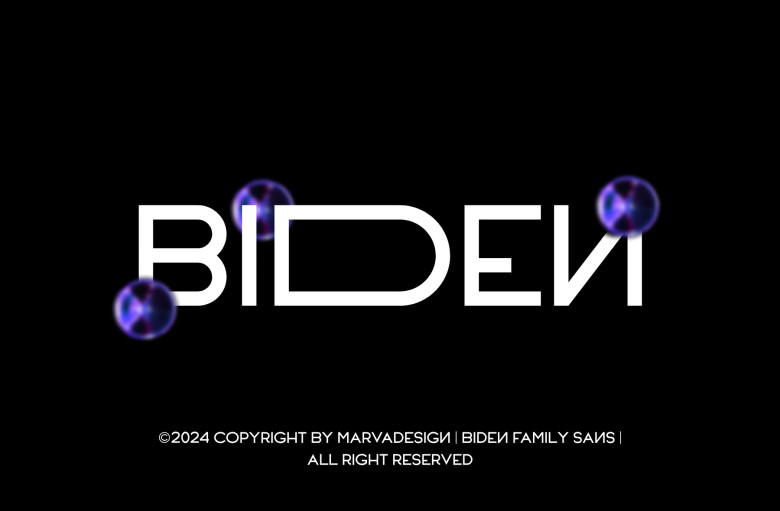
Biden Font
Welcome Biden font a fine genuine sans serif typeface is derived by fusing the necessary characteristics of Futura but with a interjection of elegance. This font is not your typical font with three textures: Light, Regular and Bold where each of them have a different spin to it. The Light variant developed from the inspiration of the hit TV show Modern Family is mature and unobtrusively attractive; the sleek frame guarantees legibility while adding a touch of class.
This style thrives where there is the need to create, employ or suggest an unobtrusive element of modernity; it is perfect for lean titles or thin text. The Regular style evolved from the Light one and is a rise in thickness by one wave providing more stability and clarity. Nevertheless, it increases the level of contrast, while promising smooth readability, which can be most useful in the body texts or the content that requires a middle-gauge emphasis.
The Bold style, a style originating from the Modern Family, has straighter and thicker lines and, nevertheless, adheres to the concept of modernity. It’s the epitome of succulent typography as it appeals to the masses or suitable for any technical, dynamic titles or design elements that need a highly conspicuous announcement.
Biden Sans Serif Font